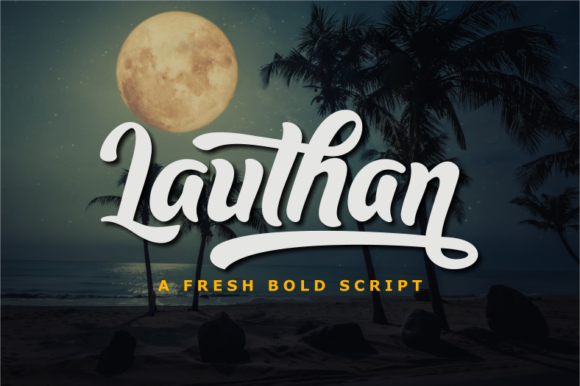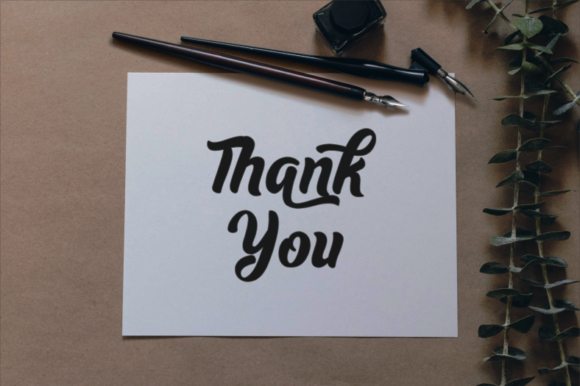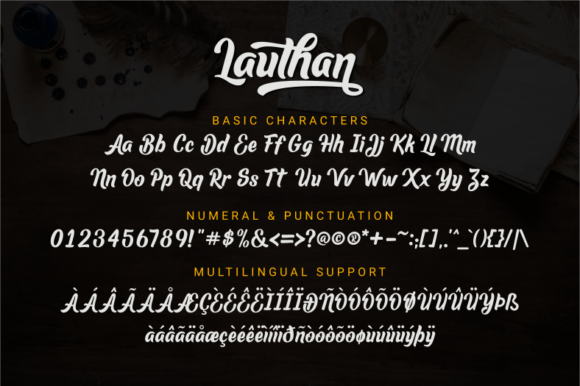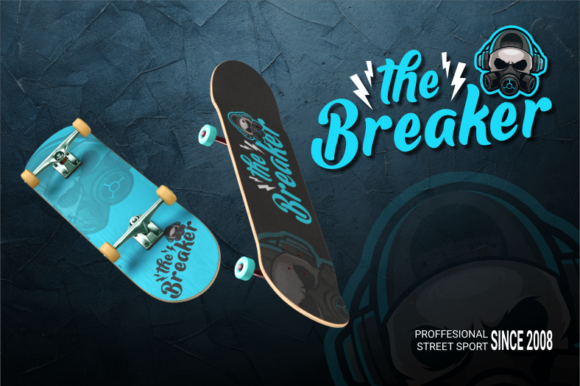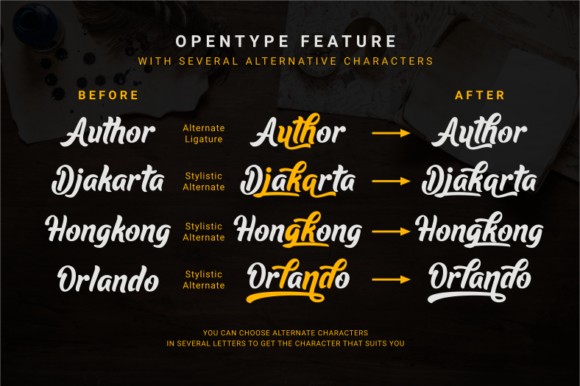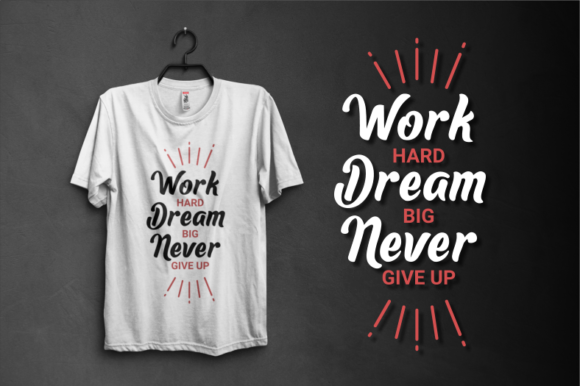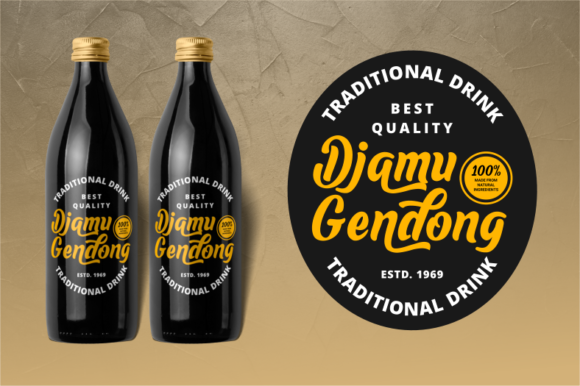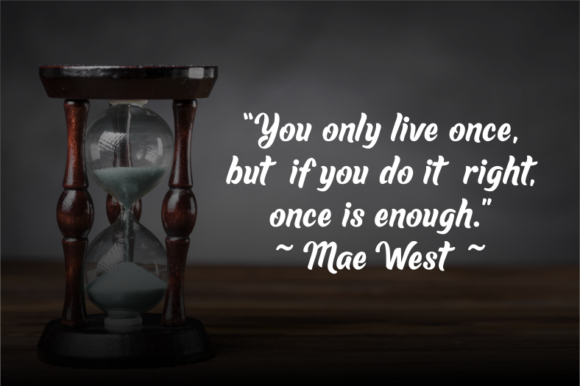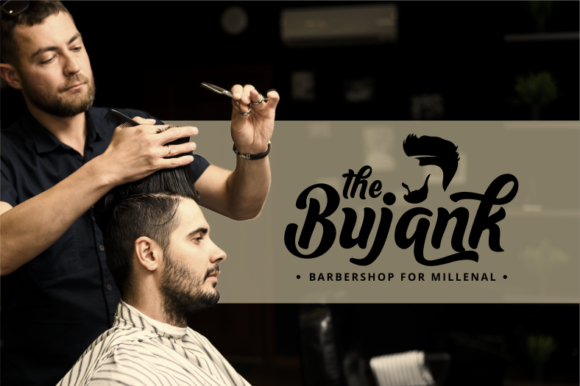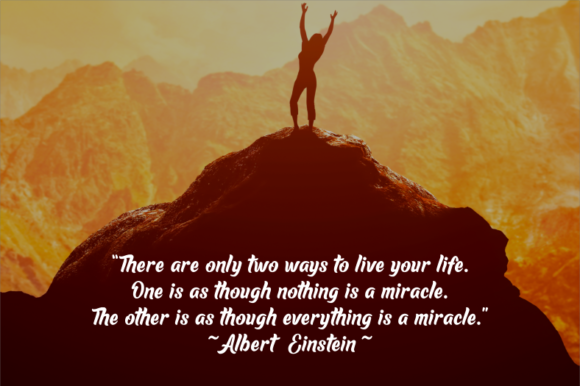
Lauthan Font
About Lauthan Font
Lauthan is a bold handwritten font, carefully handcrafted to become a true favorite. Its casual charm makes it appear wonderfully down-to-earth, readable and, ultimately, incredibly versatile.